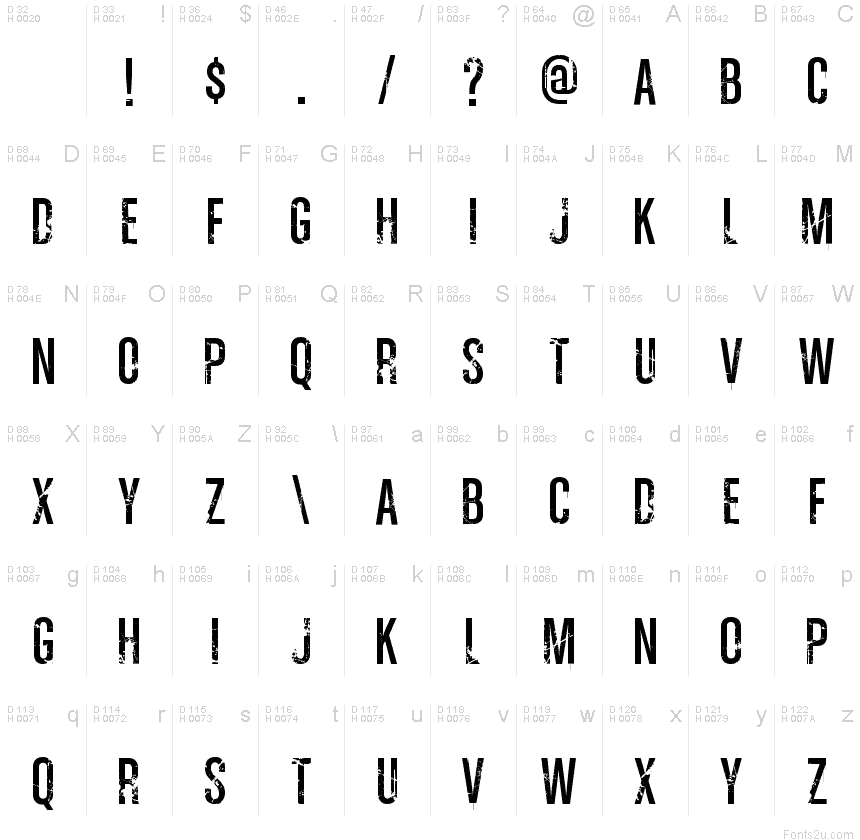
VTKS Ink by Douglas Vitkauskas is a free eroded display font with tall, tightly drawn capitals and a blunt industrial build. Splattered gaps and sharp scratches cut through the strokes.
Urban decay and underground music are its clearest territory, making it suited to concert posters, album artwork, and streetwear graphics. On horror packaging or game title screens, the damaged surface can suggest grime, impact, or neglect without added effects. The scattered marks also merge with distressed photography and collage illustration, making the lettering part of the image.